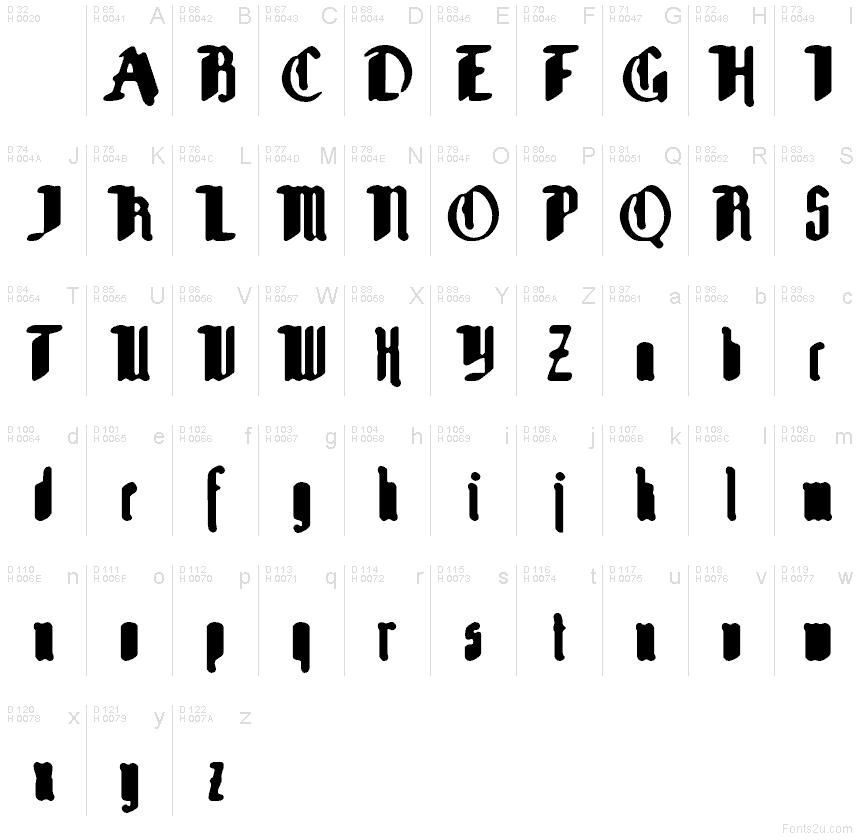
CS Elijah Drawn font by Craft Supply Co. is a free hand-drawn gothic display font. Built within the CS Elijah family, it trades razor-sharp blackletter for plush, brushy heft—thick verticals, rounded notches, and soft cuts that feel inked rather than carved. The result is moody but approachable, carrying medieval bones with a warm, smudged edge that reads clearly at headline sizes.
Using CS Elijah Drawn, you get a rhythmic, chunky texture that anchors logos and titles without turning illegible. It shines on craft beer labels, band merch, tattoo-inspired posters, medieval event graphics, coffee packaging, skate zines, and dramatic video thumbnails. This free font rewards big sizes; set it large and pair with a clean geometric sans for captions to let its inky curves breathe.